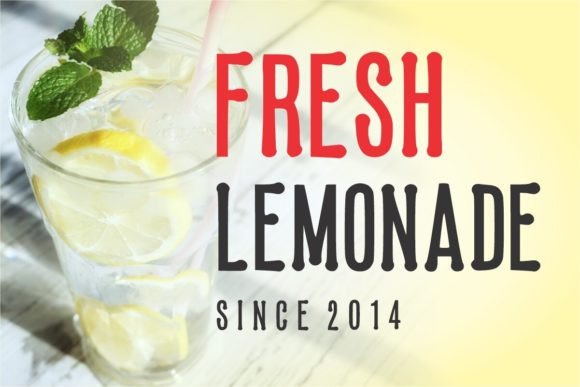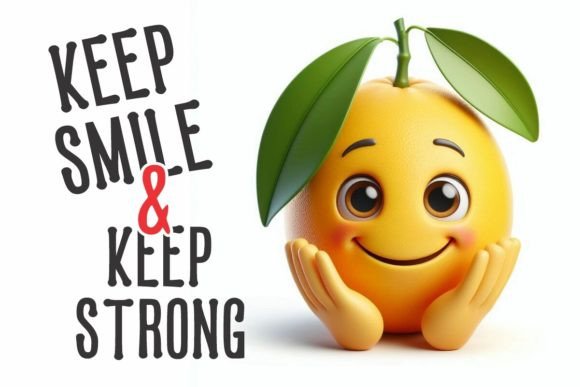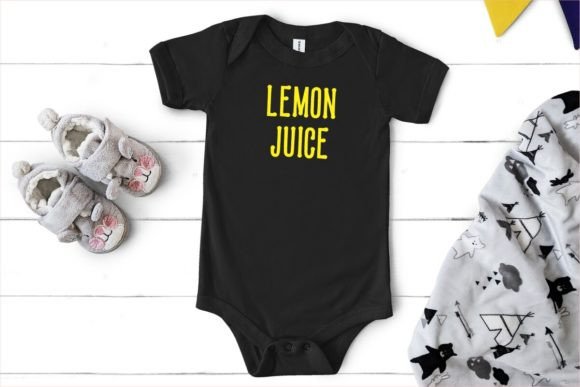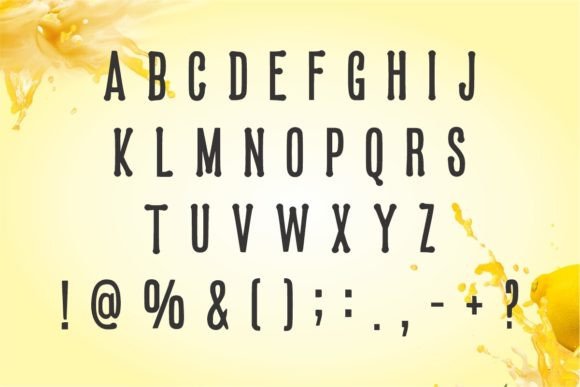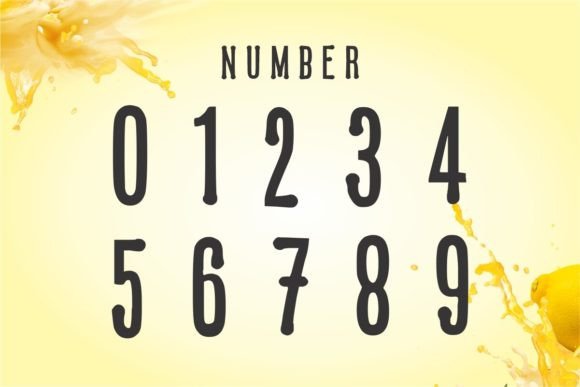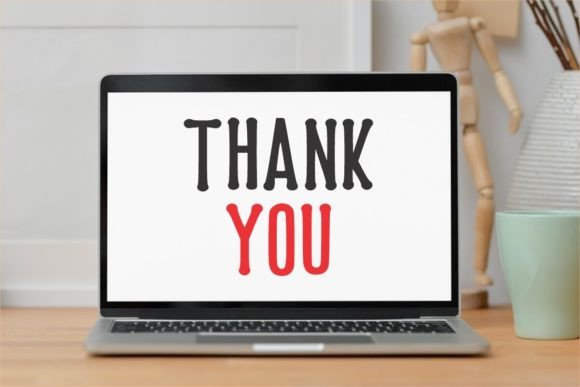
Introduction to Lemon Squash Font
As a designer, there’s nothing quite like the thrill of seeing a project come together. But sometimes, it’s the little details that can make all the difference. Remember that moment when you stumbled upon the perfect font to match your client’s quirky personality? That’s exactly what the Lemon Squash Font can bring to your creative projects.
Whether you’re working on a social media campaign, a branding project, or a simple poster, the Lemon Squash Font is the perfect design resource to add a touch of whimsy and personality. With its high-quality, handwritten feel, this font is sure to brighten up any design and make it stand out from the crowd.
Key Features of Lemon Squash Font
- Unique and playful design that is perfect for creative projects, making it a valuable design resource.
- Features a large character set, including uppercase and lowercase letters, numbers, and special characters, making it a versatile choice for a wide range of projects.
- Perfect for use in various design projects, including logos, branding materials, and digital graphics, thanks to its modern and eye-catching design.
Honest Review: Lemon Squash Font
I recently stumbled upon the Lemon Squash Font, a popular design resource that caught my attention with its unique and playful vibe. As a designer, I was excited to put it to the test and see if it would live up to its hype.
Here’s what I liked:
- ✨ The font is incredibly versatile, suitable for a wide range of creative projects, from children’s books to food labels.
- ✨ The high-quality design ensures that the font looks great on various backgrounds, including transparent backgrounds.
- ⚠️ The font may not be suitable for formal or professional projects due to its playful nature.
- ⚠️ Some users may find the font’s complexity overwhelming, especially when trying to pair it with other design elements.
Overall, I’m impressed with the Lemon Squash Font’s unique design and versatility. While it may not be perfect for every project, it’s an excellent resource for designers looking to add a touch of personality to their creative work.
The Lemon Squash Font is a versatile and high-quality design resource that can elevate your creative projects. With its unique style and transparent background, it’s perfect for designers looking to add a touch of elegance to their work.
To get the most out of the Lemon Squash Font, try combining it with other design elements, such as graphics and textures, to create a unique and eye-catching look. Experiment with different font sizes and styles to add visual interest to your designs.
The Lemon Squash Font is perfect for a variety of creative projects, including:
- Graphic designs and logos
- Magazine and newspaper layouts